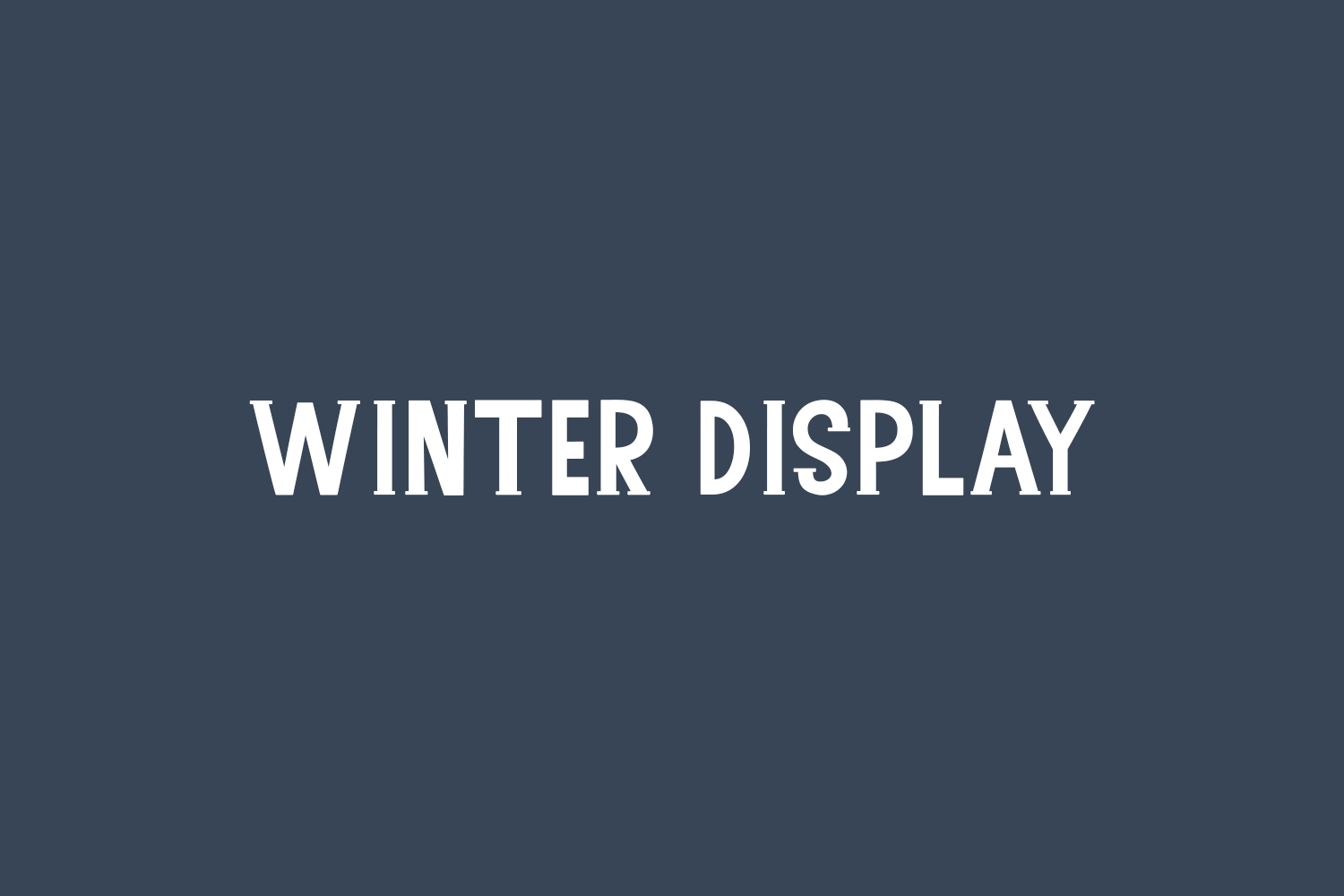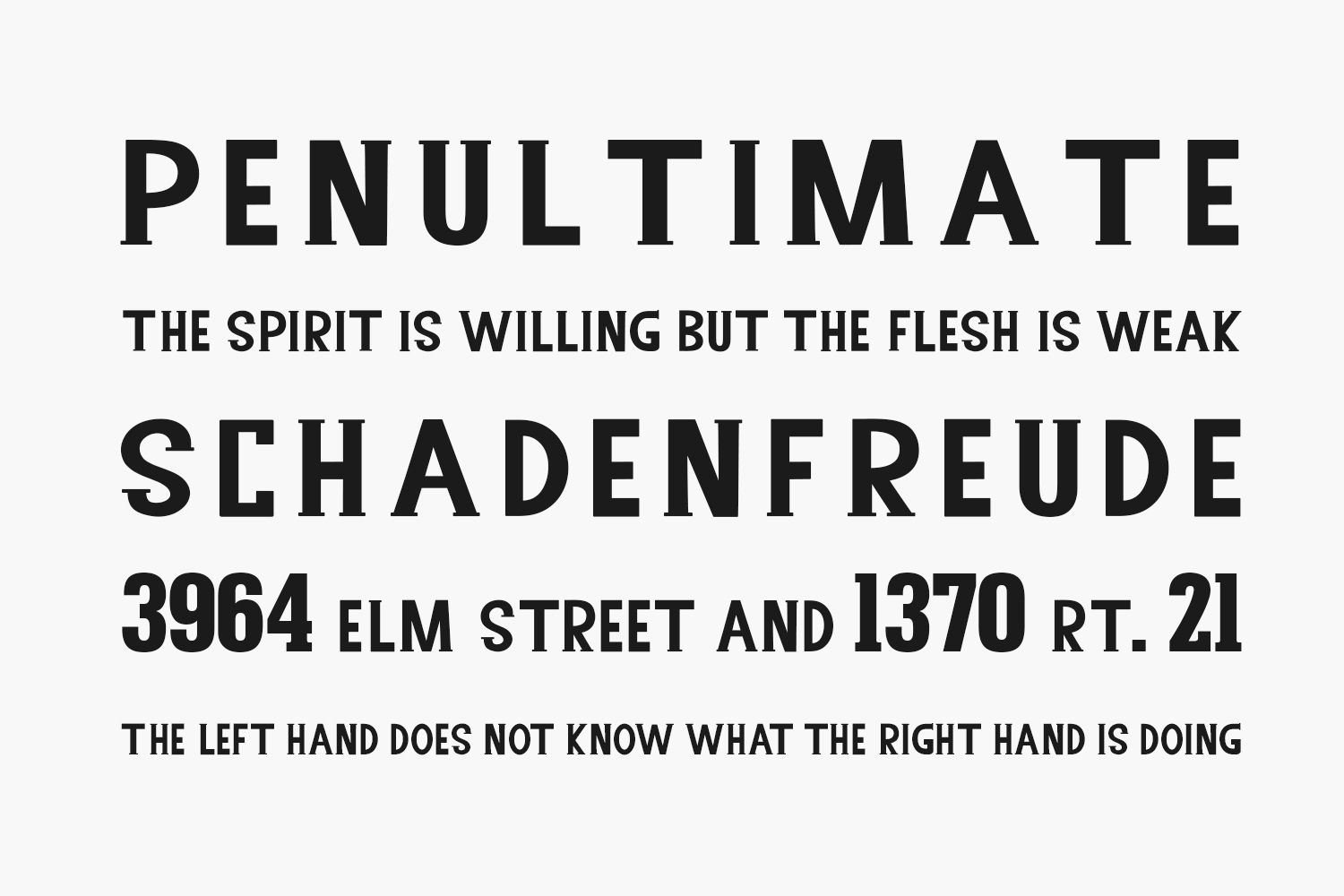
Winter Display Free Font is a dynamic display serif typeface. Whether used together or on their own, these fonts bring a touch of sophistication and cheer to any project. Ideal for a range of crafts, including scrapbooking, card-making, and invitations, these fonts are the perfect addition to your design arsenal. So if you want to add a touch of magic to your next project, look no further than Winter Display Free Font.